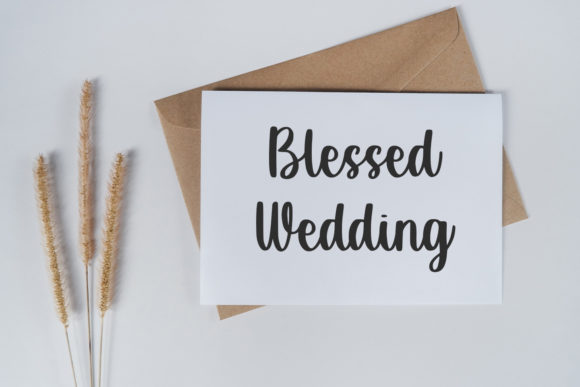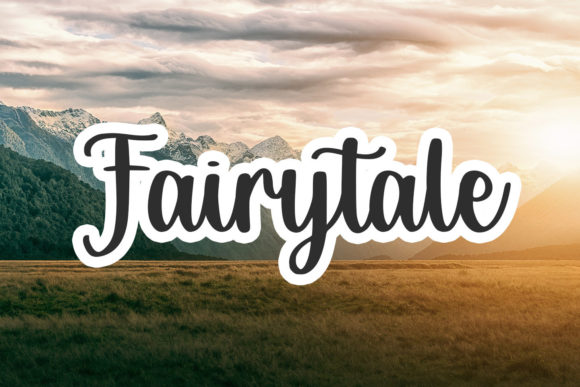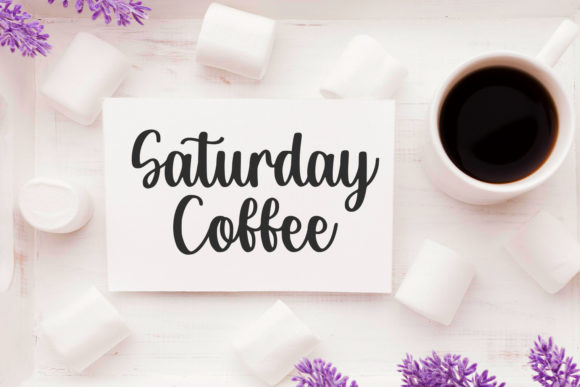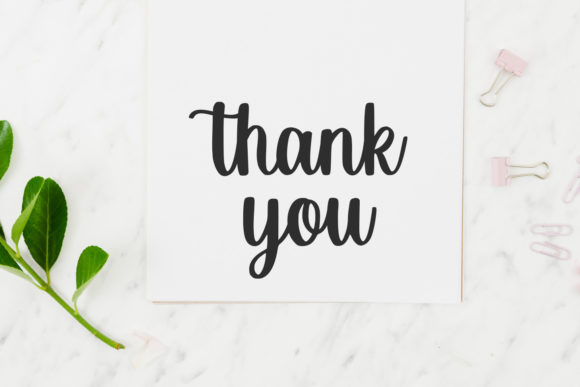
Bettermilk Font
About Bettermilk Font
Bettermilk is a unique and elegant handwritten font. It looks beautiful on a variety of designs requiring a personalized style, such as wedding invitations, thank you cards, weddings, greeting cards, logos and so on.